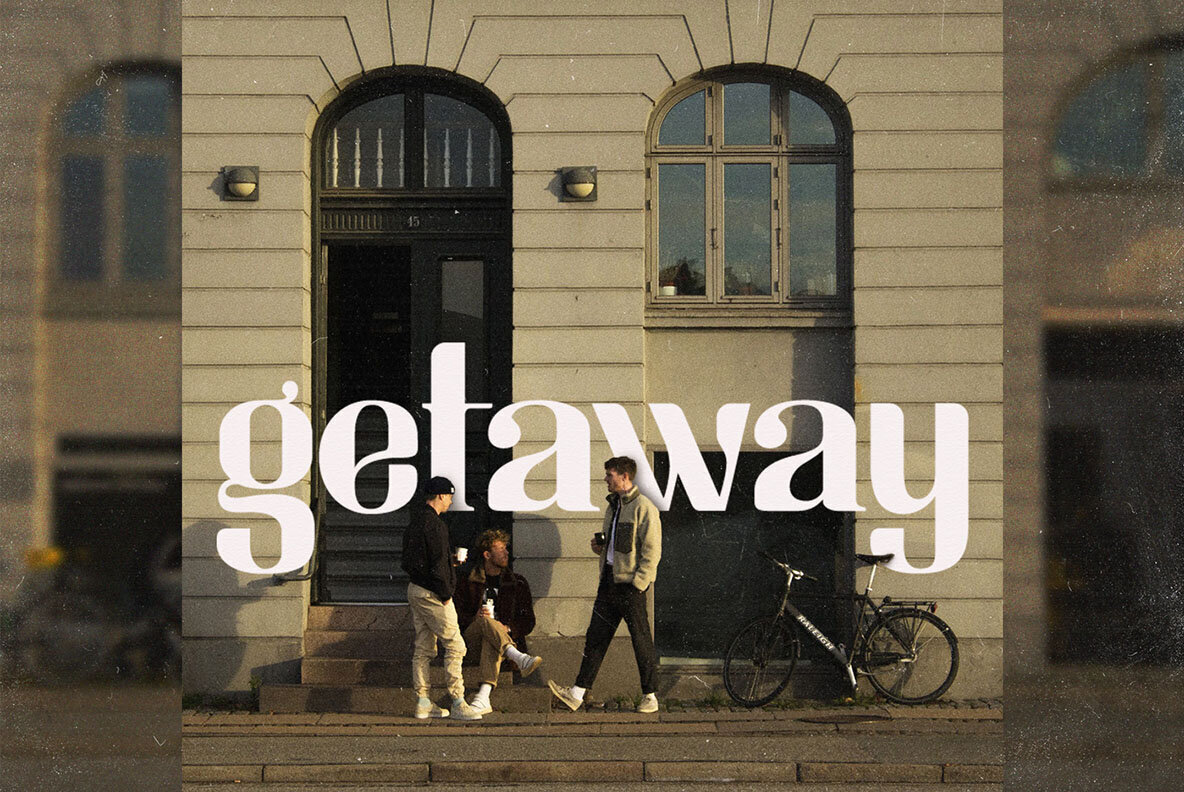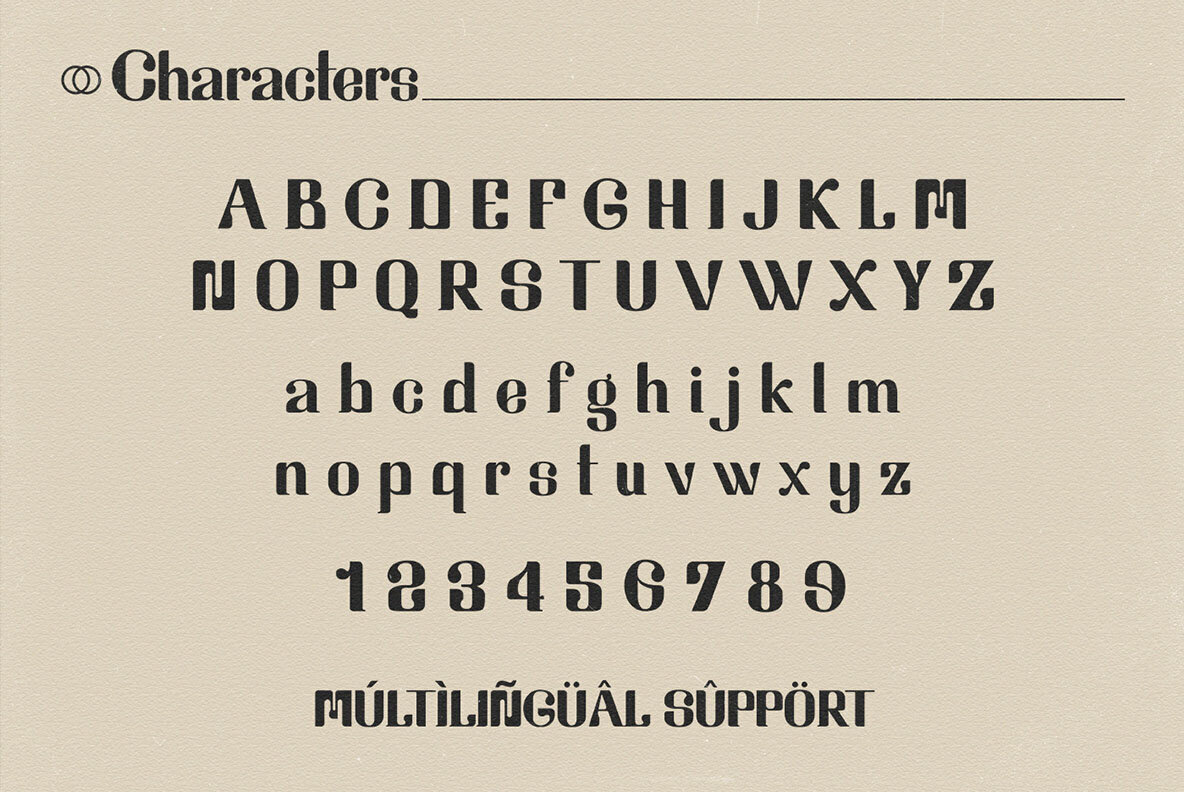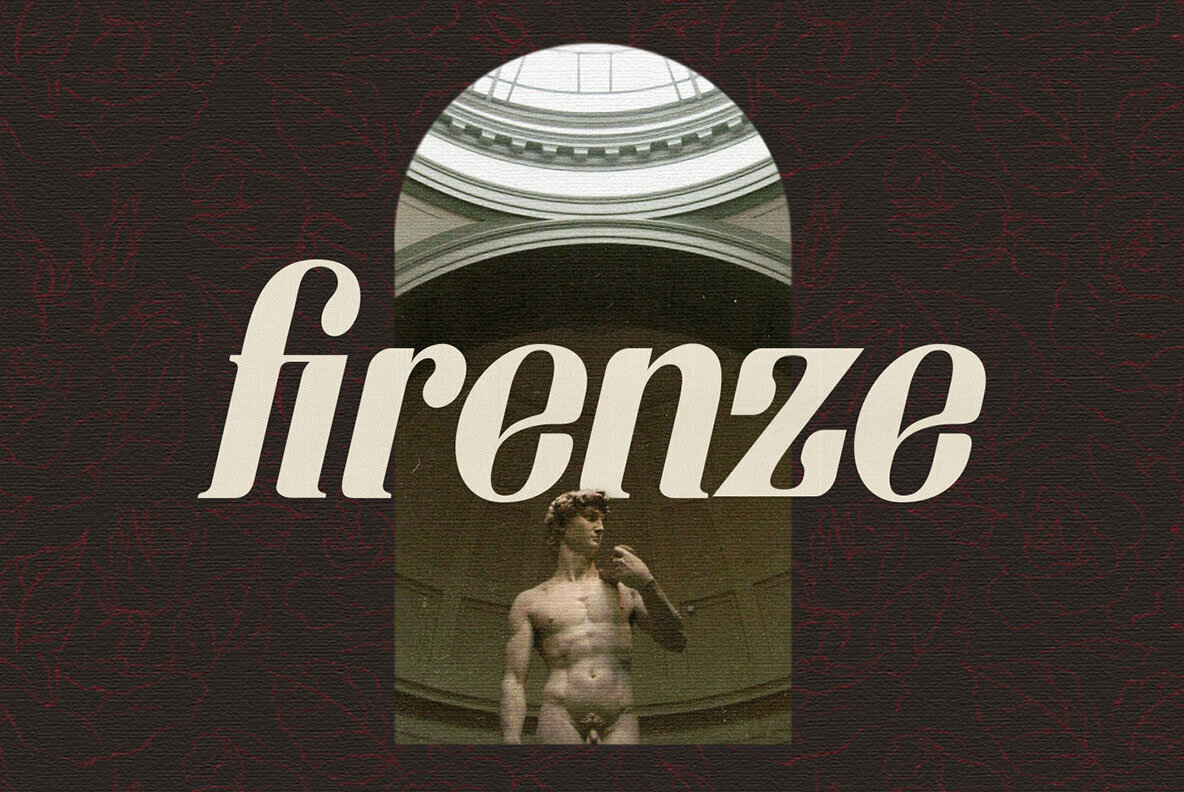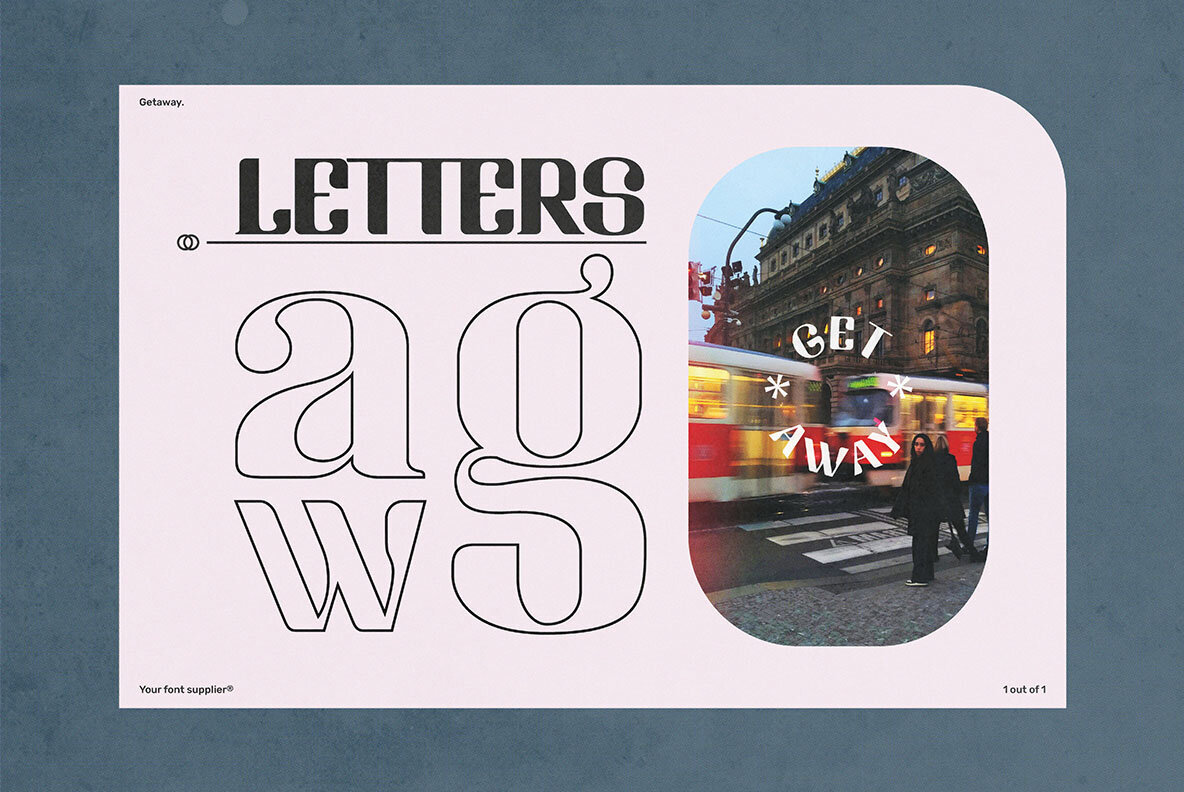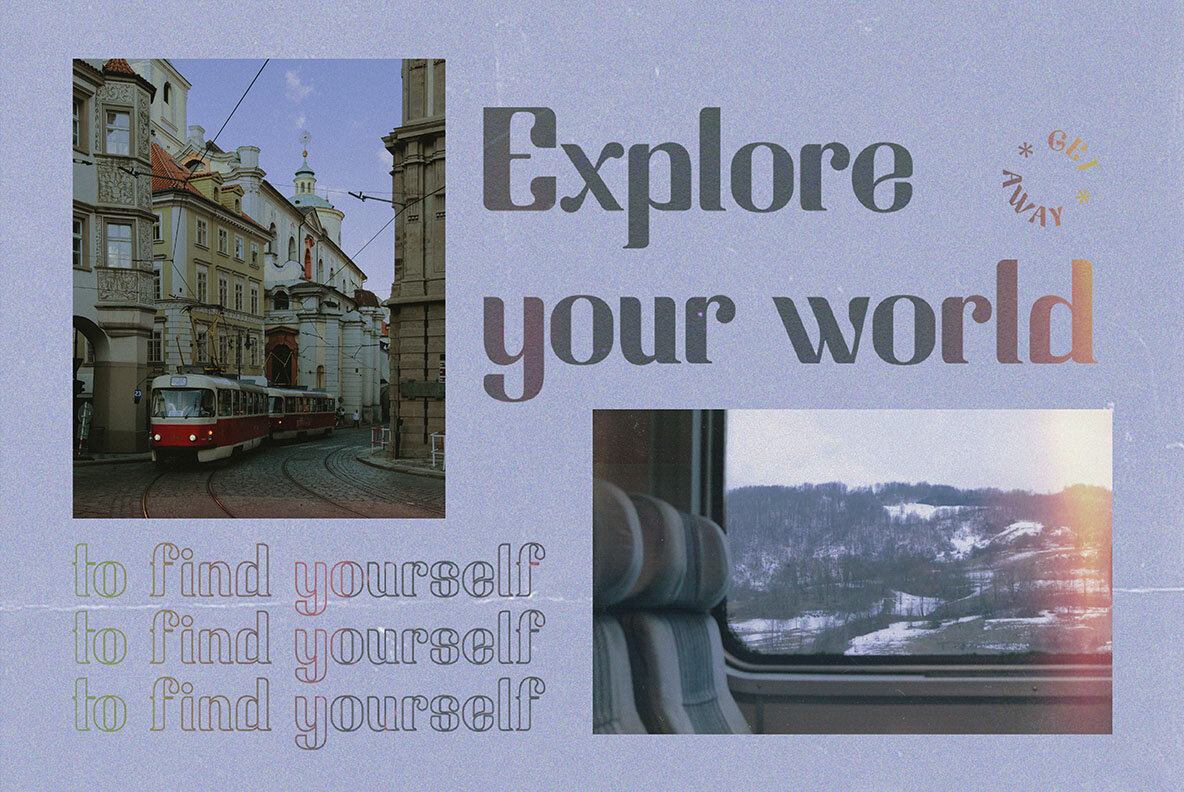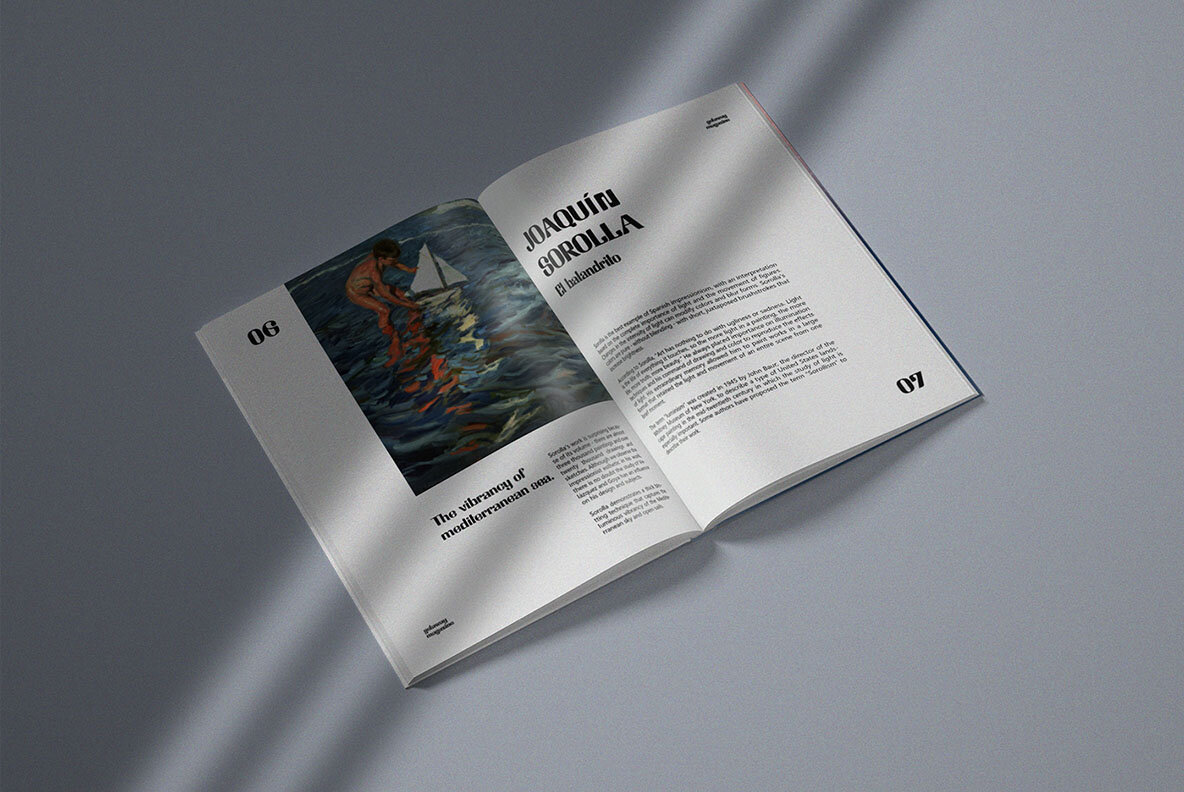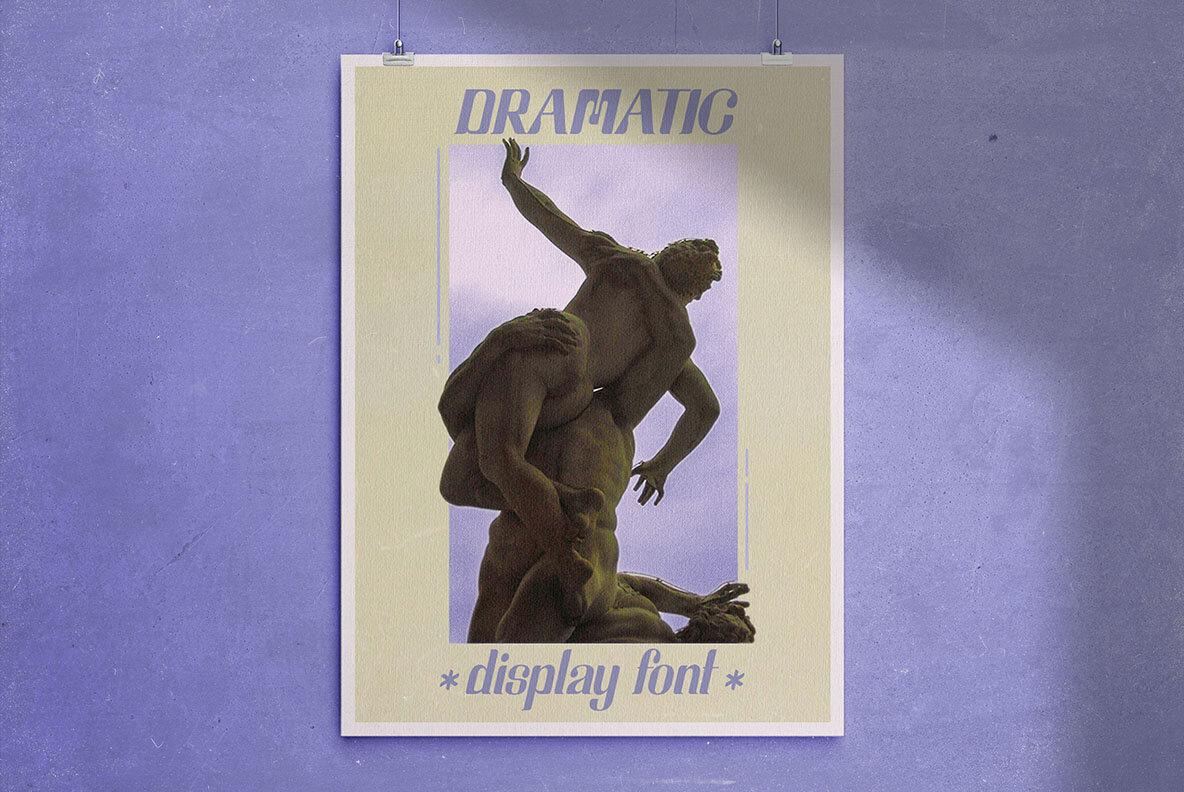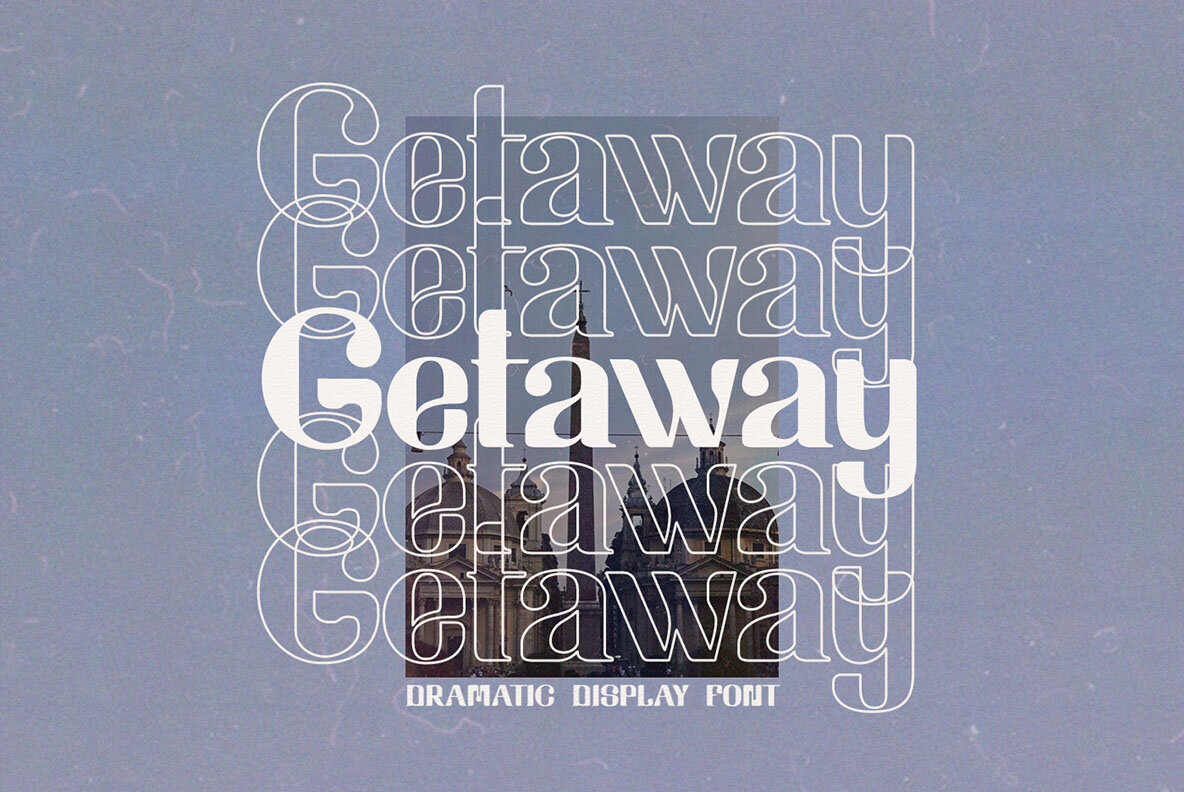
Getaway Font
Getaway is a versatile design that has the ability to elevate your work no matter what you're doing. Whether it's headlines or posters, Getaz will be there for all of those important moments in time with its vintage feel and modern twist on typography styles--making this font an asset any graphic designer needs!